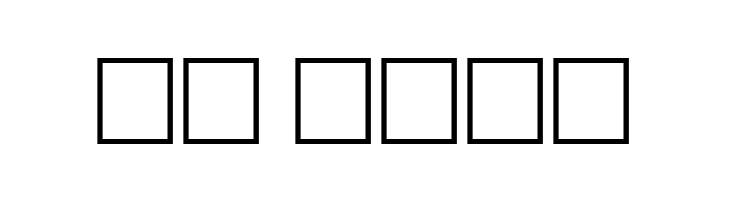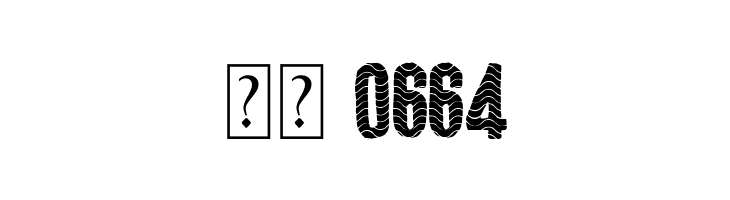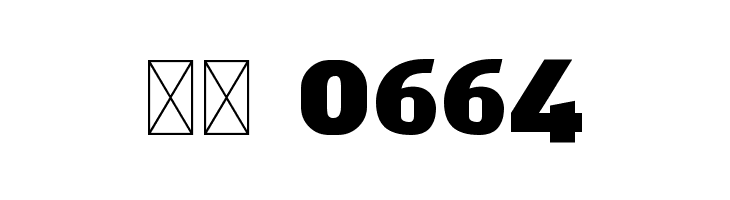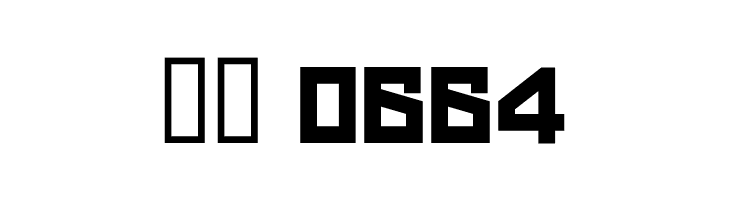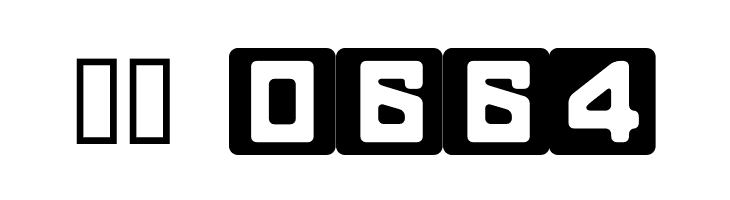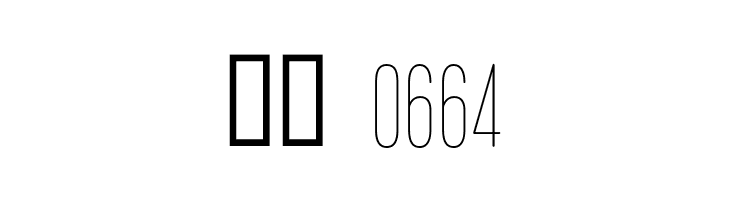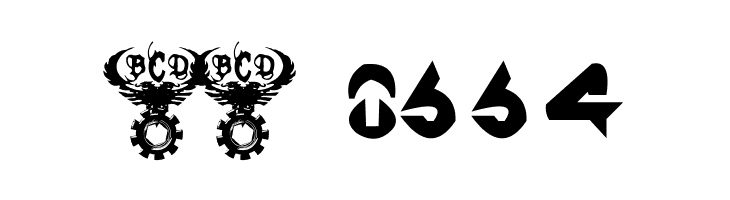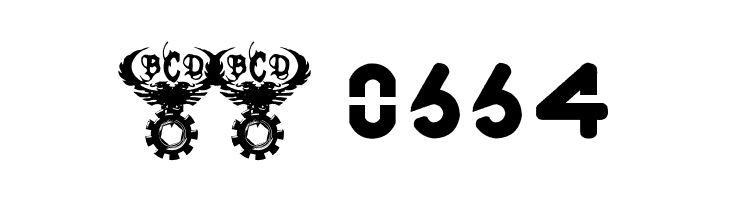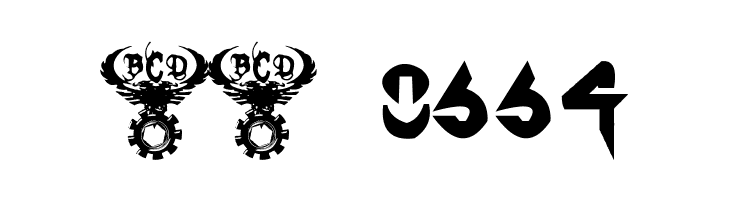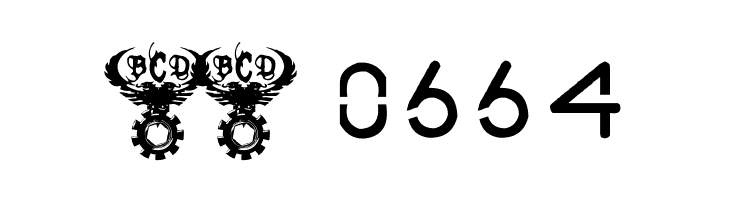
A playful, dotted-line font perfect for creative projects.
A sophisticated script font with elegant curves and modern flair.
A bold, modern font with strong, thick strokes and a commanding presence.
A bold, energetic script font with fluid, connected strokes and a handwritten style.
A bold, expressive script font with a dynamic, handwritten style.
Ornamental tile-patterned decorative font.
A geometric, futuristic font with angular, block-like letterforms.
A bold, playful font with chunky, whimsical characters.
A bold, decorative font with intricate, swirling embellishments.
A cursive, handwritten-style font with elegant curves and fluid motion.
An elegant italic font with smooth, flowing characters.
A futuristic, geometric font with bold, rounded shapes and tight spacing.
A playful and flowing script font with elegant swashes and decorative elements.
A delicate, elegant font with thin, elongated strokes and a refined appearance.
A bold, gothic-style font with intricate details and high contrast.
A bold, geometric font with enclosed characters and playful symbols.
A bold, three-dimensional font with a vintage, geometric style.
A bold, three-dimensional font with a vintage, shadowed style.
Bold, three-dimensional serif font with shadow effects.
A bold, italicized font with a 3D shadow effect and modern, dynamic style.
A bold, three-dimensional font with a vintage, decorative style.
A bold, decorative font with a three-dimensional, shadowed effect.
A bold, 3D decorative font with high contrast and a modern style.
A bold, 3D serif font with a vintage yet modern look, perfect for impactful headlines.
A bold, wave-patterned decorative font with a modern flair.
A bold, decorative font with a steampunk, industrial aesthetic.
A decorative, gear-themed font with bold, stylized characters and intricate embellishments.
A decorative, gear-themed design with an industrial and steampunk aesthetic.